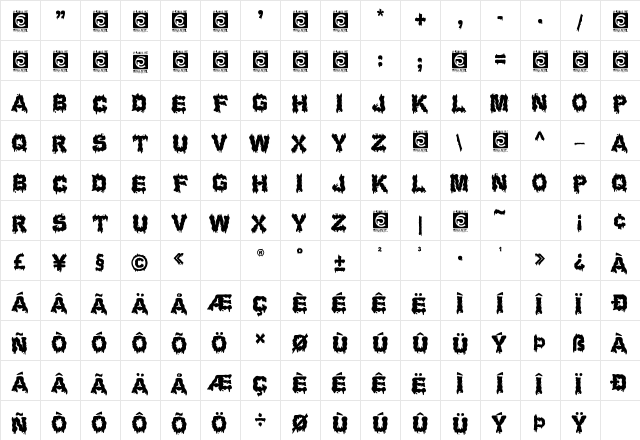
Water Splash Regular
| Foundry | Putracetol Studio, Karanganyar. |
| Designer | Putra Novembria Candra Kusuma |
Design Context for Water Splash Typeface
Water Splash is a composed and adaptable typeface that performs quietly and consistently across a wide range of design contexts.